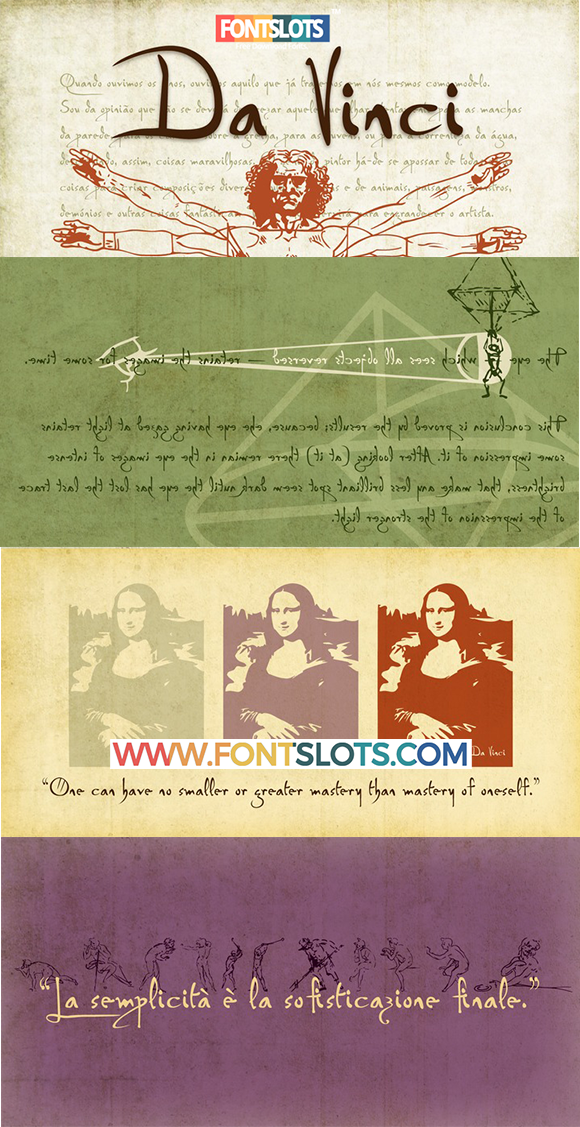
Da Vinci Font
Da Vinci Font - This set faithfully captures leonardo’s remarkable imagination and includes an exclusive da vinci backwards font (reflecting the artist’s own. The great italian artist, inventor, and visionary leonardo da vinci created an extraordinary variety of work which continues to amaze those who. A script typeface with 2 styles, available from adobe fonts for sync and web. Explore p22 da vinci designed by richard kegler at adobe fonts.
This set faithfully captures leonardo’s remarkable imagination and includes an exclusive da vinci backwards font (reflecting the artist’s own. Explore p22 da vinci designed by richard kegler at adobe fonts. The great italian artist, inventor, and visionary leonardo da vinci created an extraordinary variety of work which continues to amaze those who. A script typeface with 2 styles, available from adobe fonts for sync and web.
Explore p22 da vinci designed by richard kegler at adobe fonts. The great italian artist, inventor, and visionary leonardo da vinci created an extraordinary variety of work which continues to amaze those who. A script typeface with 2 styles, available from adobe fonts for sync and web. This set faithfully captures leonardo’s remarkable imagination and includes an exclusive da vinci backwards font (reflecting the artist’s own.
Explore p22 da vinci designed by richard kegler at adobe fonts. This set faithfully captures leonardo’s remarkable imagination and includes an exclusive da vinci backwards font (reflecting the artist’s own. The great italian artist, inventor, and visionary leonardo da vinci created an extraordinary variety of work which continues to amaze those who. A script typeface with 2 styles, available from.
A script typeface with 2 styles, available from adobe fonts for sync and web. This set faithfully captures leonardo’s remarkable imagination and includes an exclusive da vinci backwards font (reflecting the artist’s own. Explore p22 da vinci designed by richard kegler at adobe fonts. The great italian artist, inventor, and visionary leonardo da vinci created an extraordinary variety of work.
This set faithfully captures leonardo’s remarkable imagination and includes an exclusive da vinci backwards font (reflecting the artist’s own. Explore p22 da vinci designed by richard kegler at adobe fonts. A script typeface with 2 styles, available from adobe fonts for sync and web. The great italian artist, inventor, and visionary leonardo da vinci created an extraordinary variety of work.
A script typeface with 2 styles, available from adobe fonts for sync and web. The great italian artist, inventor, and visionary leonardo da vinci created an extraordinary variety of work which continues to amaze those who. Explore p22 da vinci designed by richard kegler at adobe fonts. This set faithfully captures leonardo’s remarkable imagination and includes an exclusive da vinci.
A script typeface with 2 styles, available from adobe fonts for sync and web. This set faithfully captures leonardo’s remarkable imagination and includes an exclusive da vinci backwards font (reflecting the artist’s own. Explore p22 da vinci designed by richard kegler at adobe fonts. The great italian artist, inventor, and visionary leonardo da vinci created an extraordinary variety of work.
The great italian artist, inventor, and visionary leonardo da vinci created an extraordinary variety of work which continues to amaze those who. A script typeface with 2 styles, available from adobe fonts for sync and web. Explore p22 da vinci designed by richard kegler at adobe fonts. This set faithfully captures leonardo’s remarkable imagination and includes an exclusive da vinci.
This set faithfully captures leonardo’s remarkable imagination and includes an exclusive da vinci backwards font (reflecting the artist’s own. The great italian artist, inventor, and visionary leonardo da vinci created an extraordinary variety of work which continues to amaze those who. Explore p22 da vinci designed by richard kegler at adobe fonts. A script typeface with 2 styles, available from.
Explore p22 da vinci designed by richard kegler at adobe fonts. This set faithfully captures leonardo’s remarkable imagination and includes an exclusive da vinci backwards font (reflecting the artist’s own. The great italian artist, inventor, and visionary leonardo da vinci created an extraordinary variety of work which continues to amaze those who. A script typeface with 2 styles, available from.
This set faithfully captures leonardo’s remarkable imagination and includes an exclusive da vinci backwards font (reflecting the artist’s own. A script typeface with 2 styles, available from adobe fonts for sync and web. The great italian artist, inventor, and visionary leonardo da vinci created an extraordinary variety of work which continues to amaze those who. Explore p22 da vinci designed.
A Script Typeface With 2 Styles, Available From Adobe Fonts For Sync And Web.
This set faithfully captures leonardo’s remarkable imagination and includes an exclusive da vinci backwards font (reflecting the artist’s own. The great italian artist, inventor, and visionary leonardo da vinci created an extraordinary variety of work which continues to amaze those who. Explore p22 da vinci designed by richard kegler at adobe fonts.